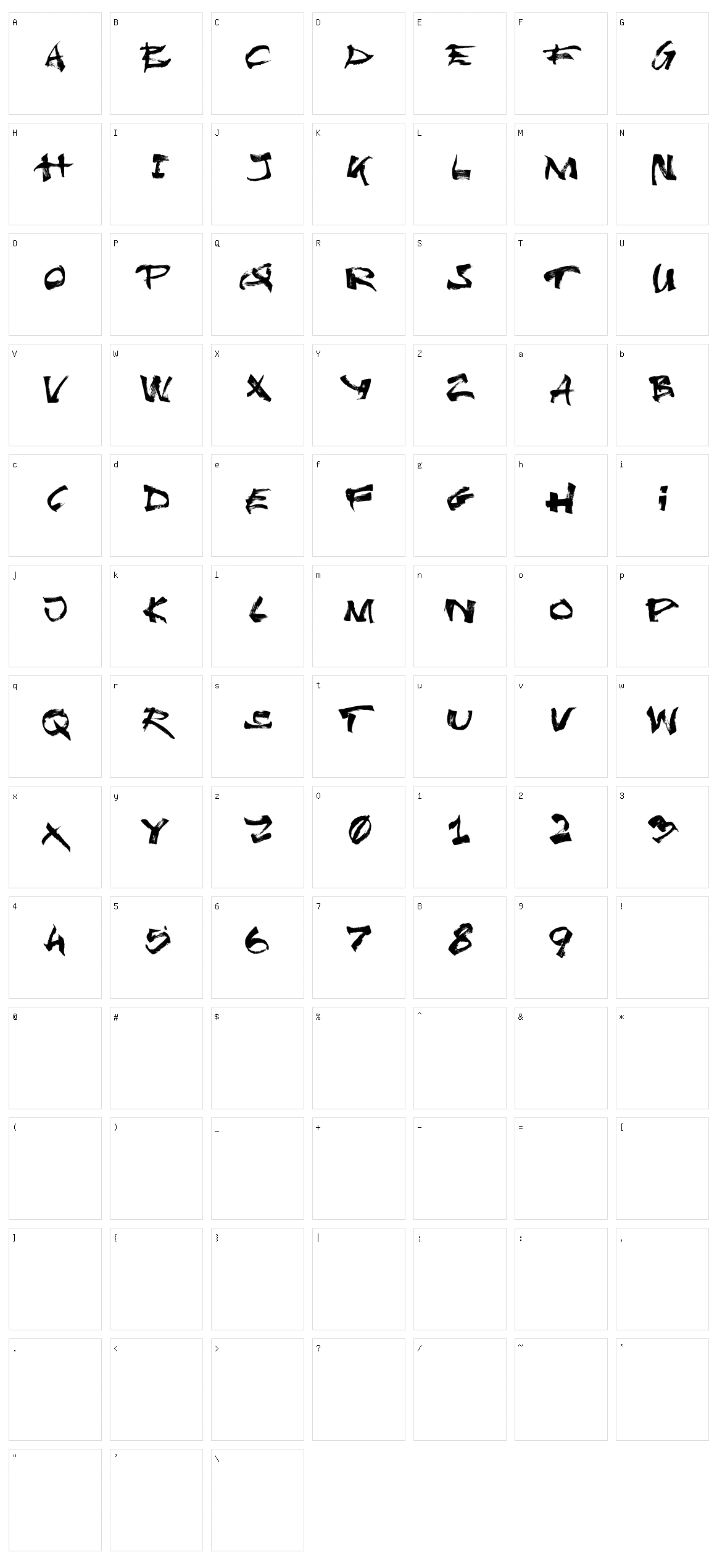
Undergrunge Tornado
Designed by: Roland Huse Design
ÿþUNDERGRUNGE TORNADO DEMO is a demo version of a grungy style hand drawn poster marker font. It contains Latin A-Z and Japanese Hiragana. For personal use only.